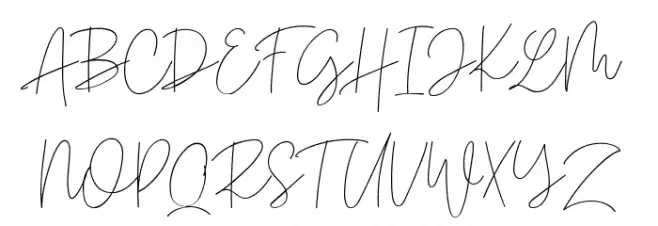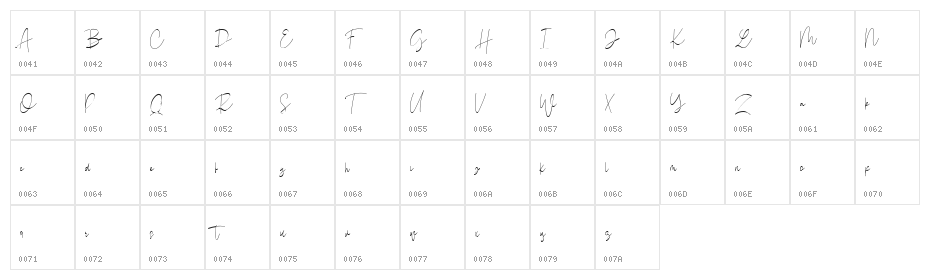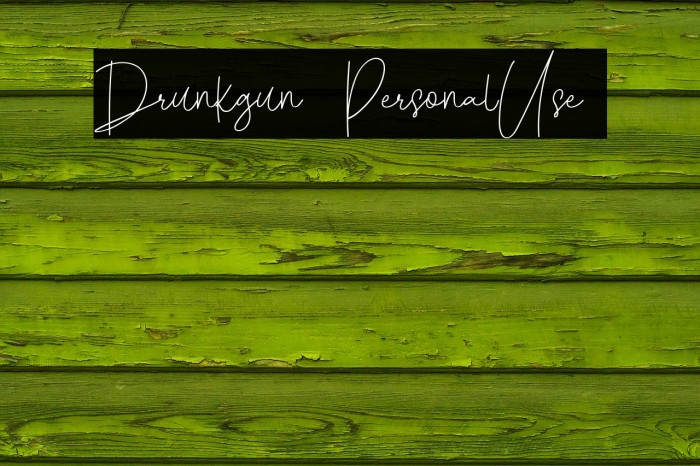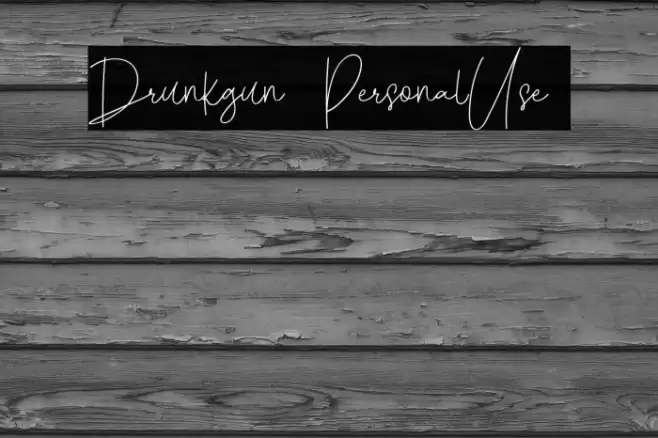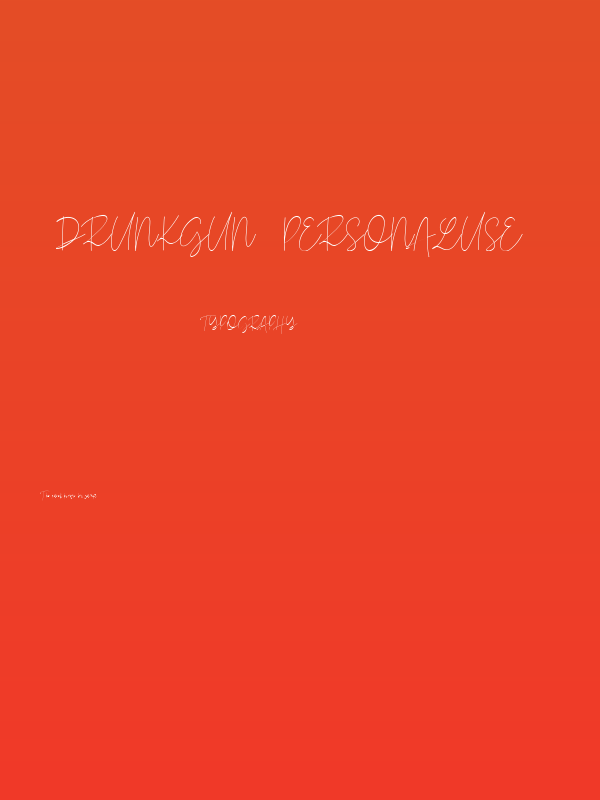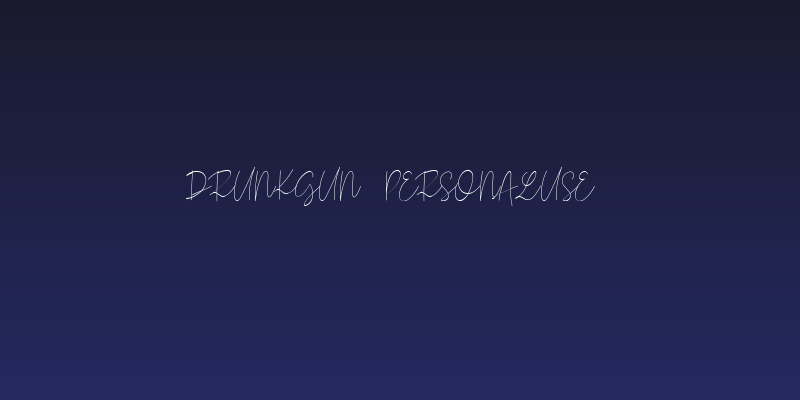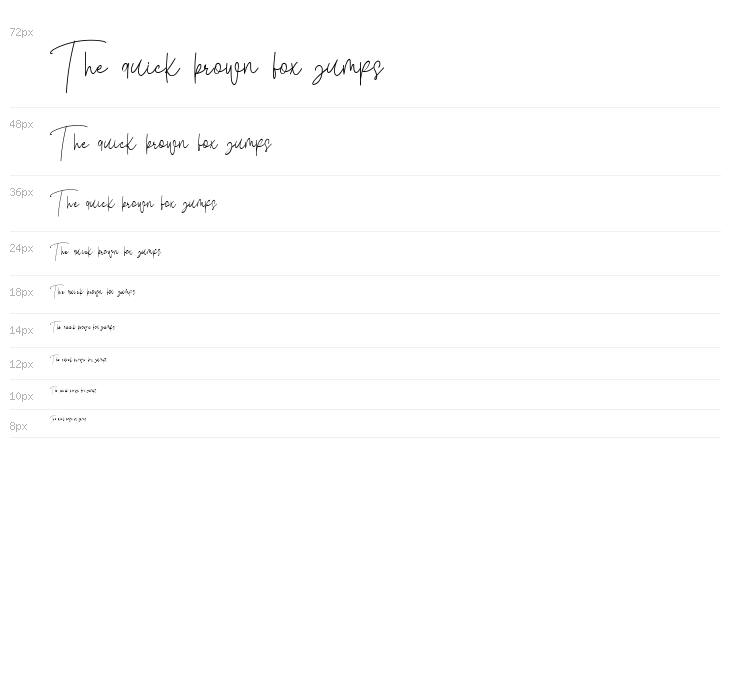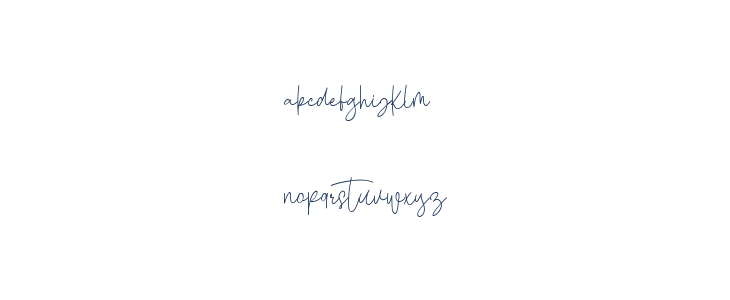
Drunkgun [ PersonalUse ] Font
Drunkgun [ PersonalUse ] Description
This font features a whimsical, handwritten style with a playful and casual appearance. The letters are characterized by their flowing, cursive forms and varying stroke widths, creating a dynamic and lively look. The uppercase and lowercase letters maintain a consistent style, with elongated ascenders and descenders that add to the font's elegant yet informal charm. The overall design is airy and light, making it suitable for projects that require a personal touch. The font's unique character is further enhanced by its slightly irregular letterforms, which give it an authentic, hand-drawn feel.
Use CaseLogos, Invitations, Personal Branding
Proposed ProjectsIdeal for wedding invitations, greeting cards, personal branding, and creative projects that require a personal, handwritten touch.